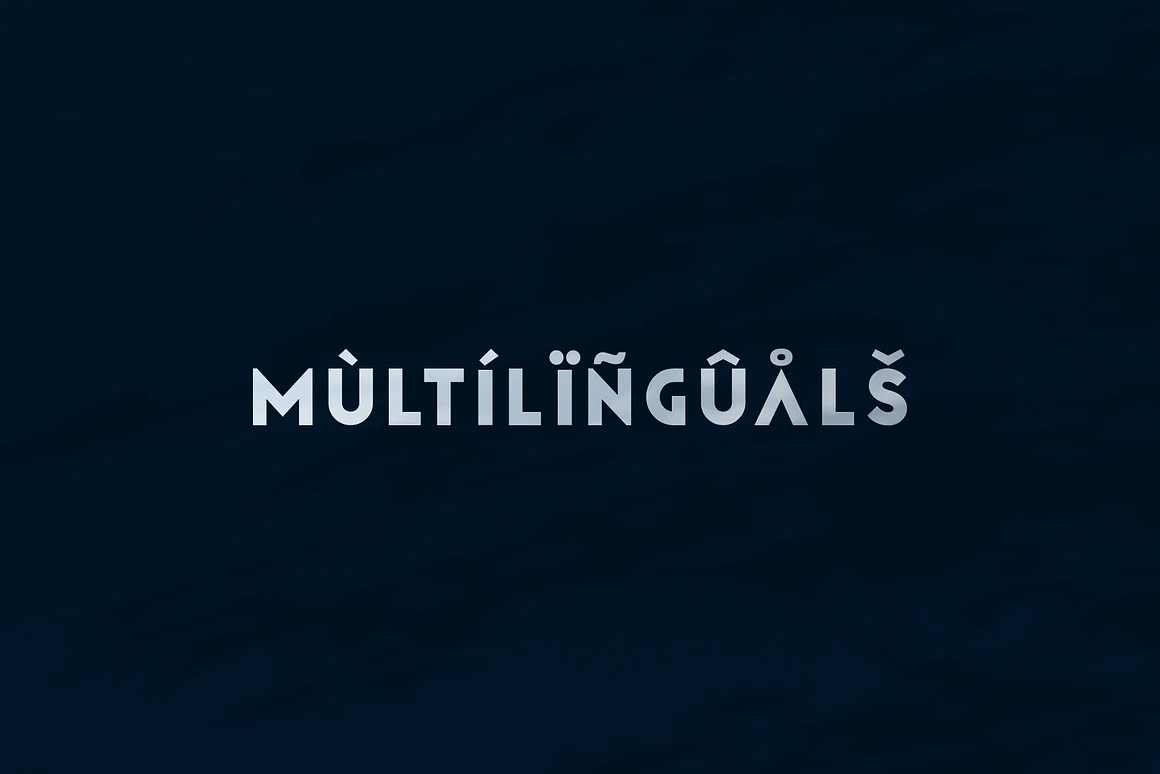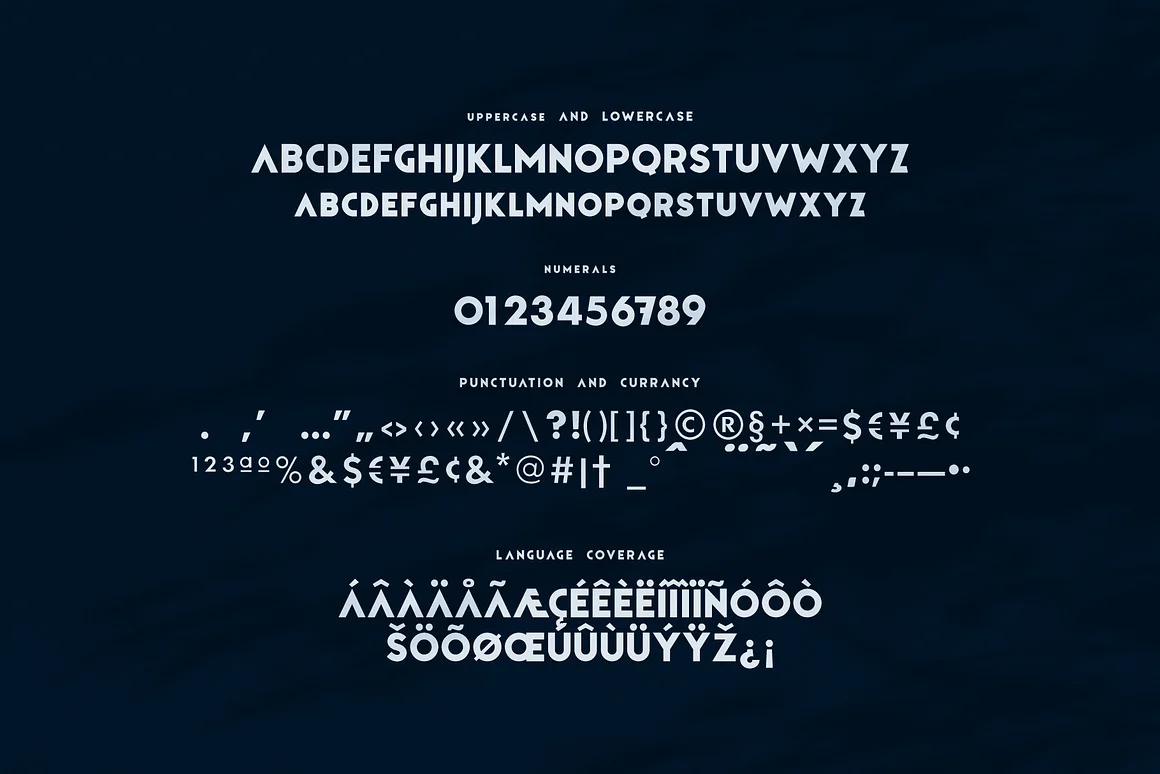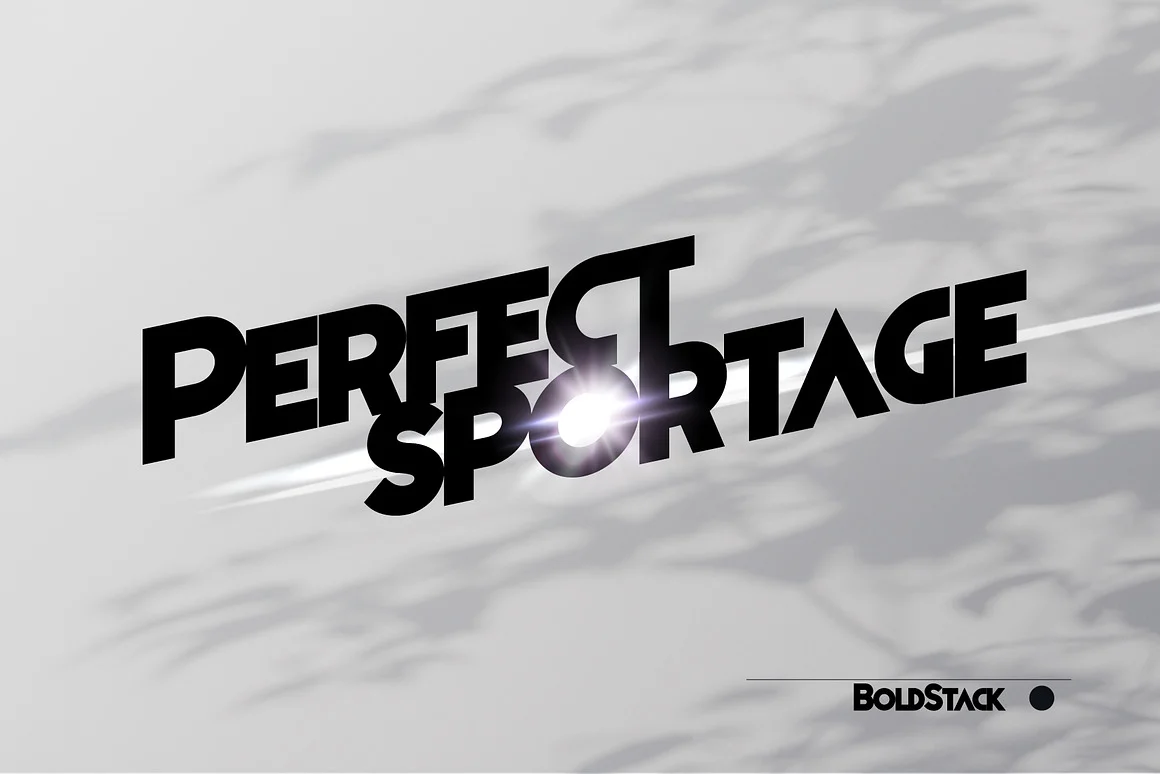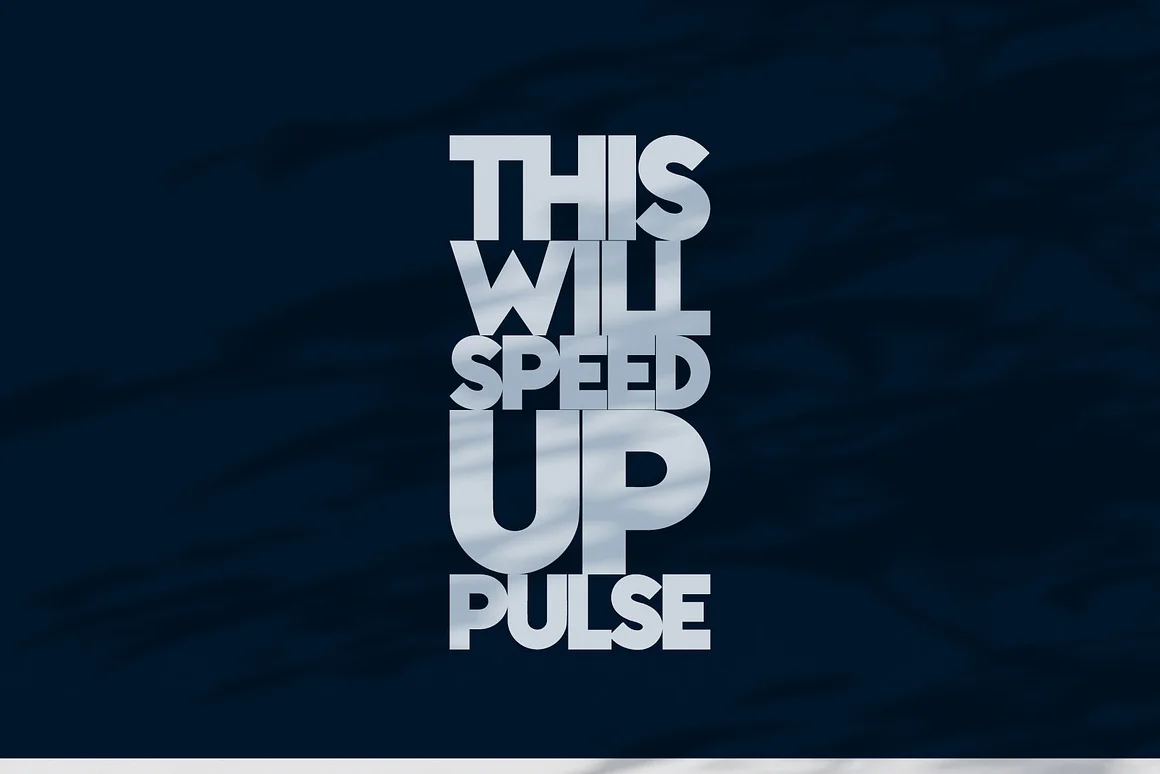
Enduro Sport Font
Typography shapes perception at a subconscious level. Enduro Sport leverages versatility across print and screen contexts to make every composition feel considered. The typeface brings a versatile sensibility to a broad range of creative disciplines, with a confident voice that adapts to diverse briefs that holds up whether the work is print-first or screen-first.
In practice, Enduro Sport proves particularly effective for annual reports, web design, advertising campaigns, signage systems, packaging design. Designers reaching for it find that the type decisions feel resolved rather than laboured — a useful quality when client timelines are tight.
The range of applications extends to product labels, environmental graphics, social media graphics, brand identity systems. That breadth is deliberate: the proportions and spacing were stress-tested across a wide range of mock briefs before the typeface was finalised.
Brand strategists building visual languages find Enduro Sport a reliable choice for projects that demand both personality and restraint. The design avoids the self-conscious quirkiness that dates quickly, settling instead for considered distinctiveness that holds up over time.